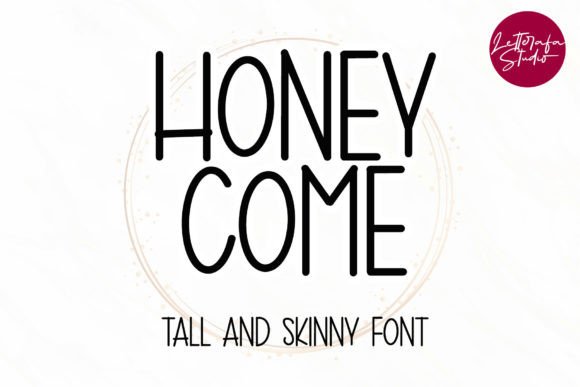
Honeycome Font for Professional Branding and Creative Projects
Honeycome for Logo Design and Brand Identity
Honeycome is a tall and skinny uppercase monoline font that brings a clean, modern look to your logo design. As a small business owner, having a strong brand identity is crucial. Honeycome helps you create a logo that feels professional and consistent with your brand's personality. Whether you're launching a new boutique or rebranding your café, this Display font can be the perfect choice for your visual identity.
Its simple yet elegant style makes it ideal for logos that need to stand out but still feel approachable. You can use Honeycome as the main typeface in your logo or pair it with a complementary sans serif font for balance. This ensures your brand remains recognizable across all marketing materials, from your website to your packaging.
Honeycome for Wedding Invitations and Elegant Branding
Honeycome is a tall and skinny uppercase monoline font that adds an air of sophistication to wedding invitations. If you're running a creative business like a boutique or event planning service, using Honeycome in your wedding invitation designs can elevate your brand's image. The font’s unique structure gives your invitations a distinctive look that sets them apart from generic templates.
For businesses that target high-end clients, such as luxury product sellers or premium service providers, Honeycome can help reinforce your brand's elegance. It works well on printed cards, digital invites, and even social media posts where you showcase your services. Its readability on both large and small formats ensures your message stays clear and impactful.
Honeycome for Packaging Design and Product Labels
Honeycome is a tall and skinny uppercase monoline font that stands out on product labels and packaging. For small business owners selling handmade items or artisanal products, the right font can make your packaging more appealing to customers. Honeycome’s minimalist design fits well with eco-friendly packaging, handmade candles, or gourmet food labels.
Using Honeycome on your product labels creates a cohesive look that reinforces your brand identity. Pair it with a clean sans serif font for body text to ensure readability while maintaining a stylish aesthetic. This combination works especially well for online shops, boutique stores, and craft fairs where first impressions matter.
Honeycome for Social Media Graphics and Digital Ads
Honeycome is a tall and skinny uppercase monoline font that looks great on social media graphics and digital ads. As a small business owner, your online presence is vital, and using the right Fonts can make your content more eye-catching. Honeycome is perfect for headlines in Instagram posts, Pinterest graphics, or Facebook ads that promote your products or services.
The font’s bold structure ensures it stands out against various backgrounds, making it ideal for thumbnails and banners. When used in conjunction with vibrant colors and relevant imagery, Honeycome helps your brand feel more modern and trustworthy. It’s also easy to read on mobile screens, which is essential for engaging your audience effectively.
Honeycome for Book Titles and Craft Designs
Honeycome is a tall and skinny uppercase monoline font that adds a touch of creativity to book titles and craft designs. If you run a publishing business, a bookstore, or sell DIY kits, this font can help your projects stand out. Honeycome’s clean lines and minimalistic style are perfect for book covers, journal titles, or handmade crafts that require a sophisticated look.
Its versatility allows you to use it as a headline or accent in your designs. For example, pairing Honeycome with a script font could give your book titles a unique flair that appeals to readers looking for something different. This font is also great for creating custom stickers, tags, or labels that match your brand’s overall theme.
Honeycome for Website Banners and Visual Content
Honeycome is a tall and skinny uppercase monoline font that enhances your website’s visual appeal. As a small business owner, your website is often the first point of contact with potential customers, so it needs to reflect professionalism and creativity. Using Honeycome in your website banners, headers, or call-to-action buttons can help guide visitors through your site more effectively.
This font works well with modern web design trends, especially when paired with a clean sans serif font for body text. Its readability on different screen sizes ensures that your website looks great whether someone is viewing it on a desktop or mobile device. By incorporating Honeycome into your website visuals, you create a more cohesive and memorable brand experience for your audience.
Honeycome for Menus and Restaurant Branding
Honeycome is a tall and skinny uppercase monoline font that adds a touch of class to menus and restaurant branding. If you own a café, bistro, or food truck, using this font can help your menu stand out and attract more customers. Its clean and modern appearance complements a variety of culinary themes, from rustic to contemporary.
Whether you’re designing a printed menu or a digital version for your website, Honeycome provides a consistent look that aligns with your brand. It can be used for headings, section titles, or special offers. Pairing it with a readable serif font for body text ensures that your menu is both visually appealing and easy to read.
Honeycome for Thank-You Cards and Customer Appreciation
Honeycome is a tall and skinny uppercase monoline font that adds a personal touch to thank-you cards and customer appreciation materials. As a small business owner, showing gratitude to your customers is important for building loyalty. Honeycome’s elegant style makes it perfect for handwritten notes, thank-you cards, or personalized gifts that express your appreciation.
Whether you’re sending out thank-you cards after a sale or creating a custom gift for loyal customers, this font helps convey sincerity and professionalism. Its minimalist design ensures that your message remains clear and focused, reinforcing your brand’s positive image in the eyes of your audience.